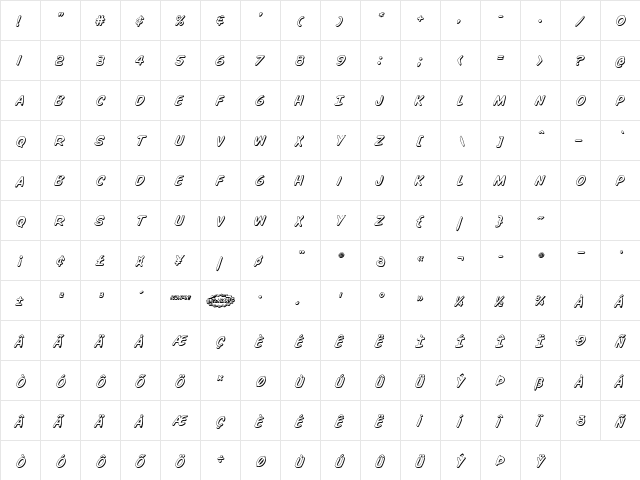
Overstreet Bible 3D Italic Italic
Design Context for Overstreet Bible 3D Italic Typeface
Overstreet Bible 3D Italic is a composed and adaptable typeface that performs quietly and consistently across a wide range of design contexts. Its italic angle brings a sense of urgency and motion to the letterforms.
Pro Tip: Use Overstreet Bible 3D Italic for emphasis, pull quotes, and subheadings where its slanted energy can add rhythm to the layout.